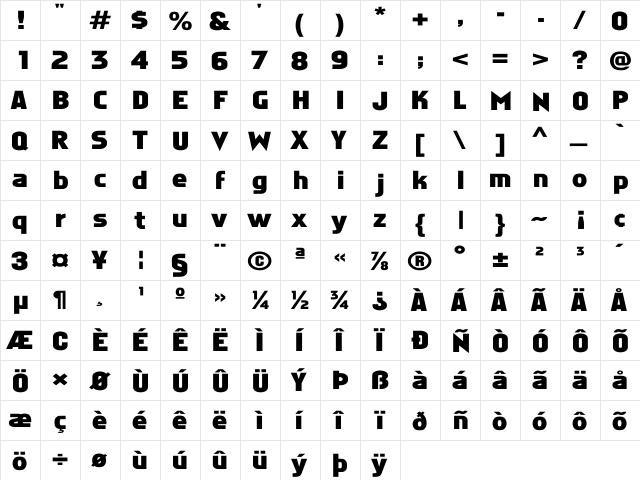
Faktos Wide Regular
Design Context for Faktos Wide Typeface
Faktos Wide is a composed and adaptable typeface that performs quietly and consistently across a wide range of design contexts.